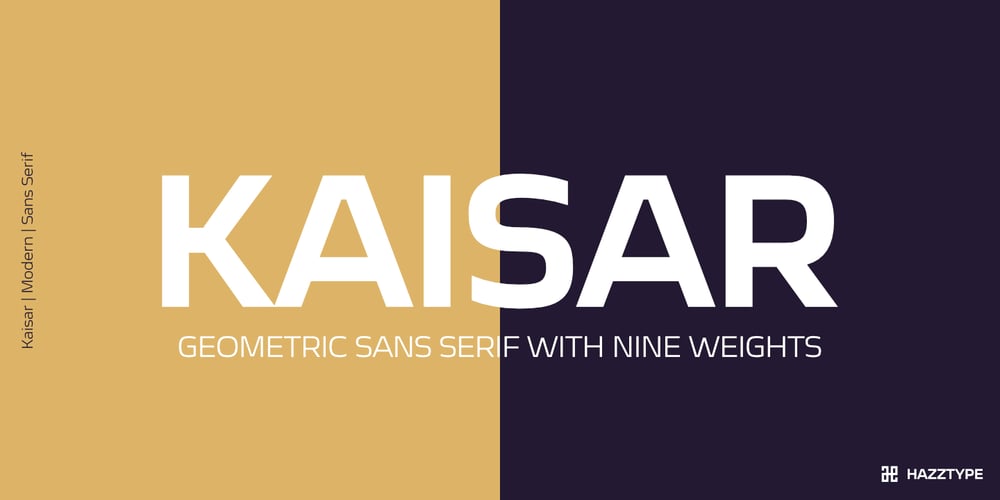
Kaisar Font Family was designed by Muhammad Hastian and published by Hazztype. Kaisar contains 18 styles and family package options. Kaisar is a geometric sans serif typeface that draws inspiration from Eurostile or similar typefaces, with less boxy feels. It comes with 9 weights and matching italics and contains 400+ glyphs that support broad latin language.Kaisar was designed to give a corporate, technological, futuristic look, great for many contexts from web to print, as a headline or as a body text.